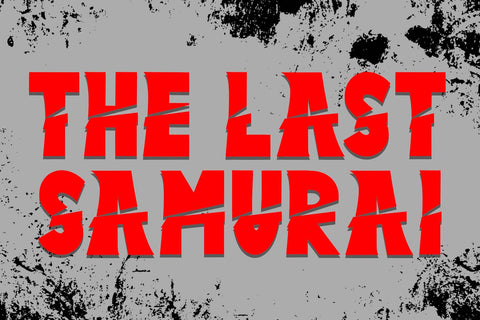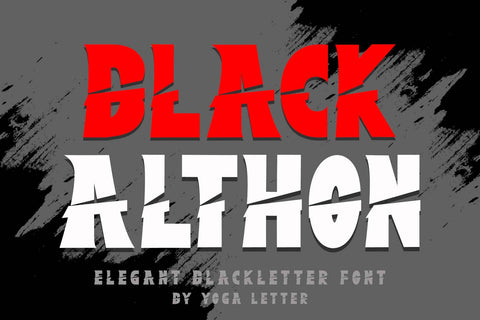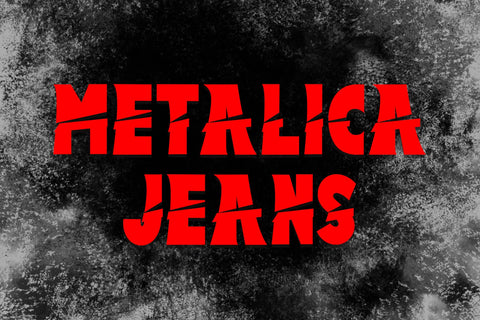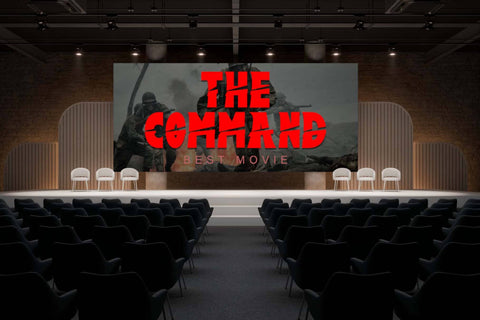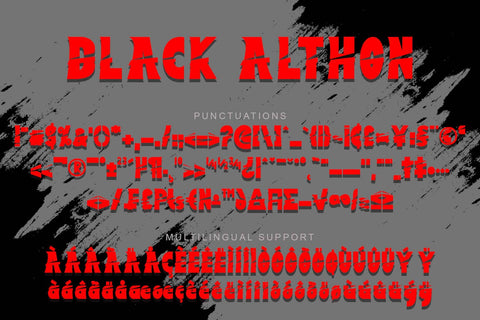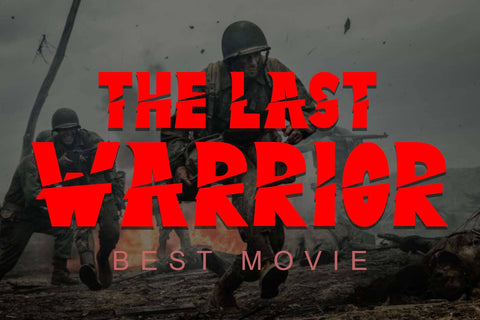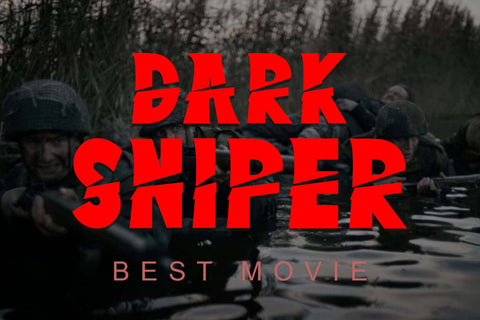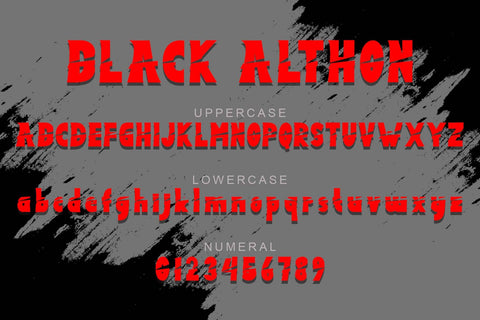
Black Althon
"Black Althon" is an elegant and unique blackletter font. This font is equipped with uppercase, lowercase, numerals, punctuations and multilingual support. It is very suitable for use as a movie font, movie title, metal concert, business branding, sticker, poster, banner, logo, print and others.